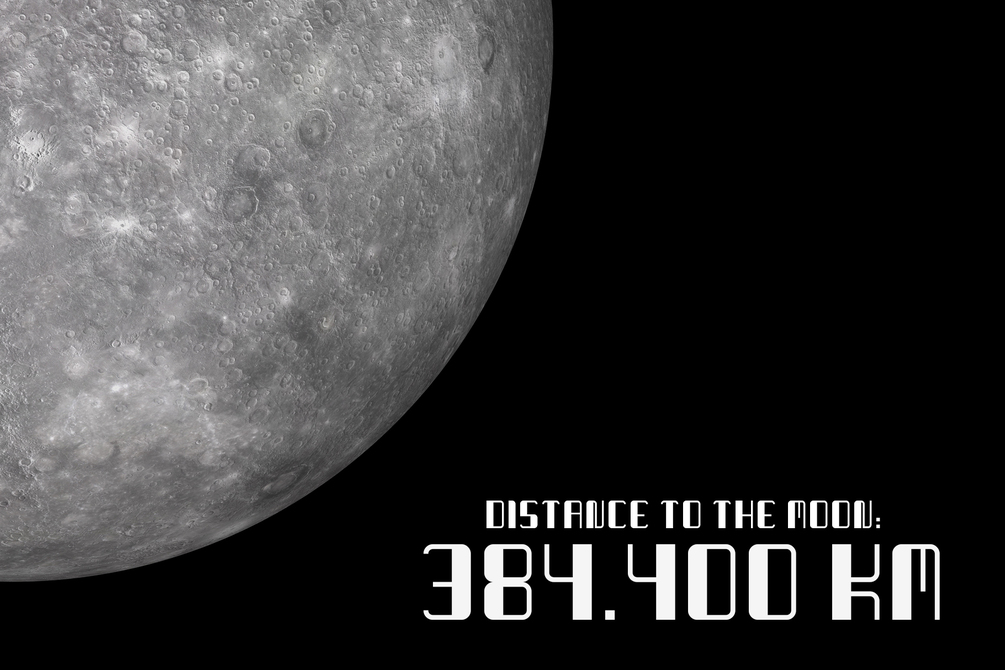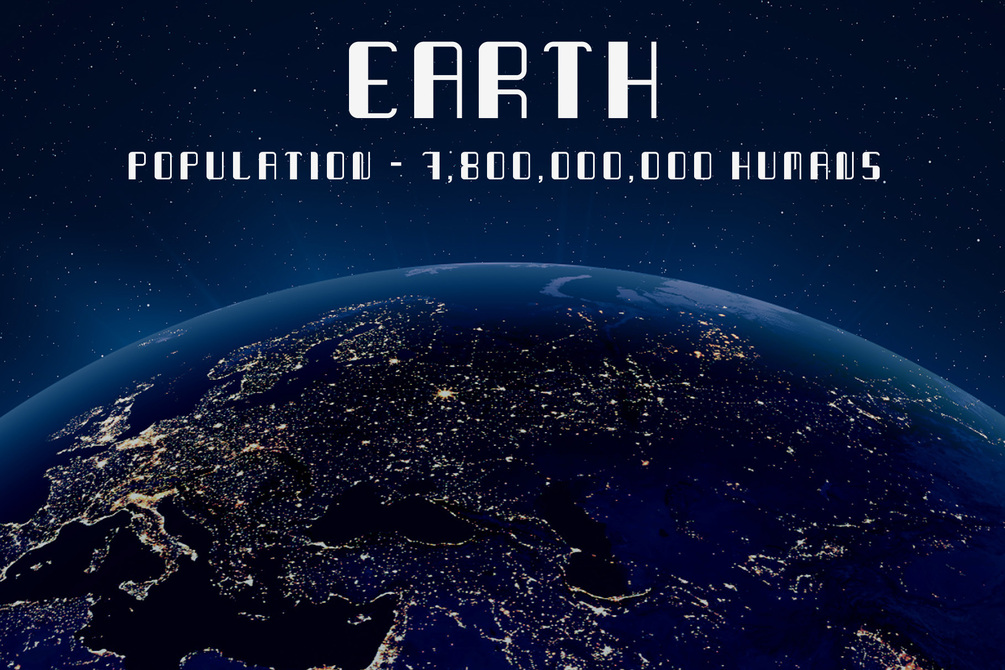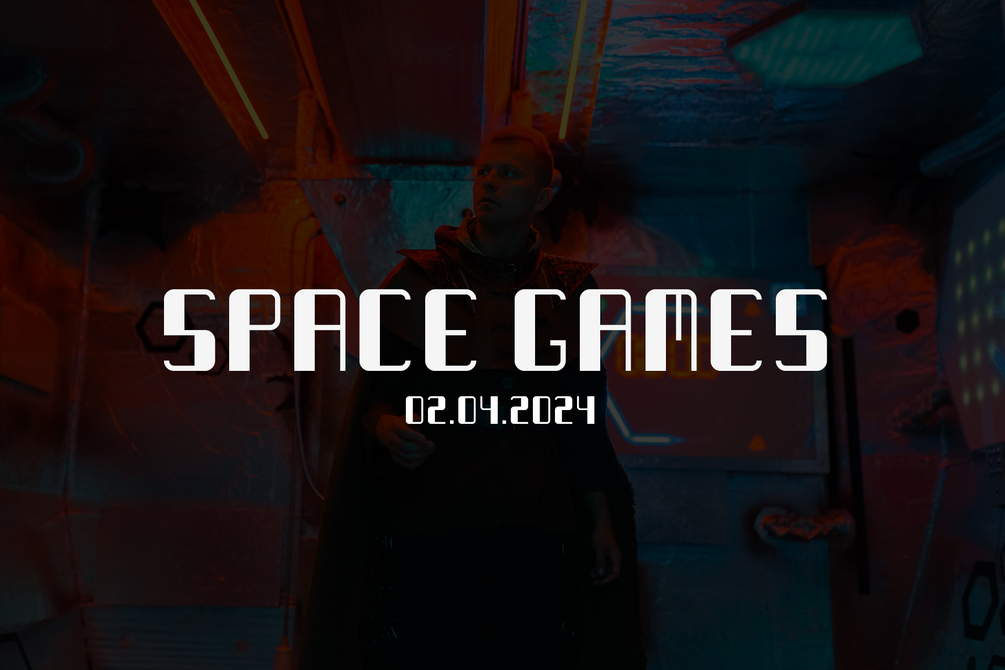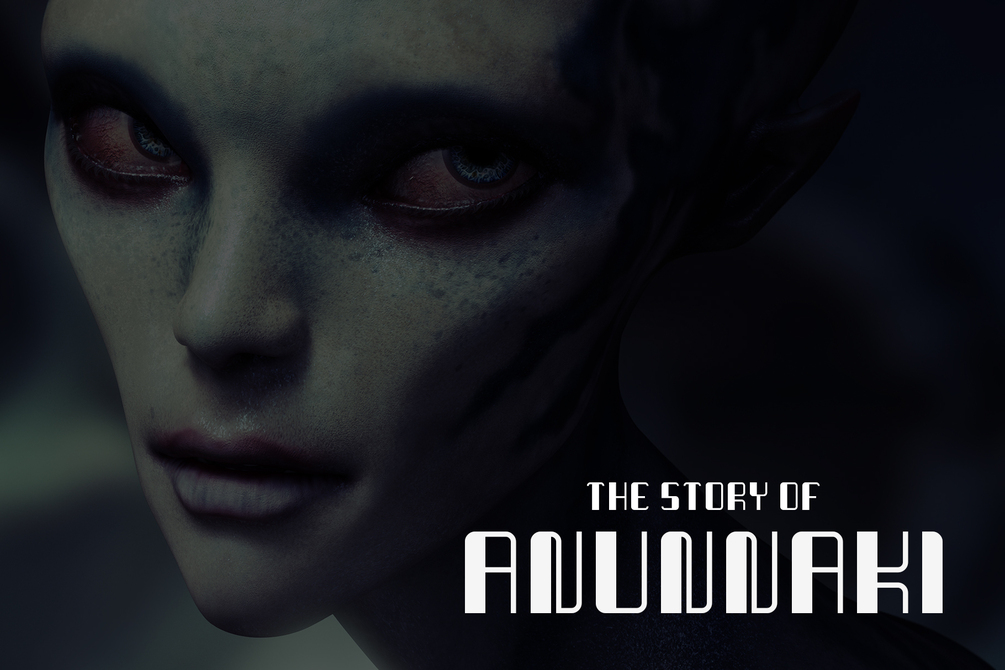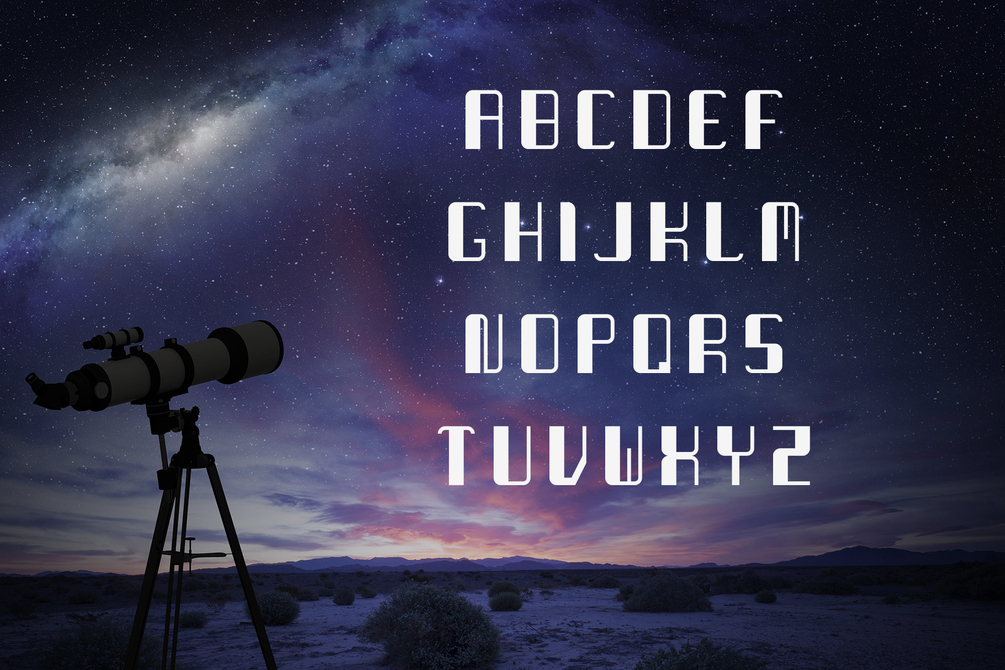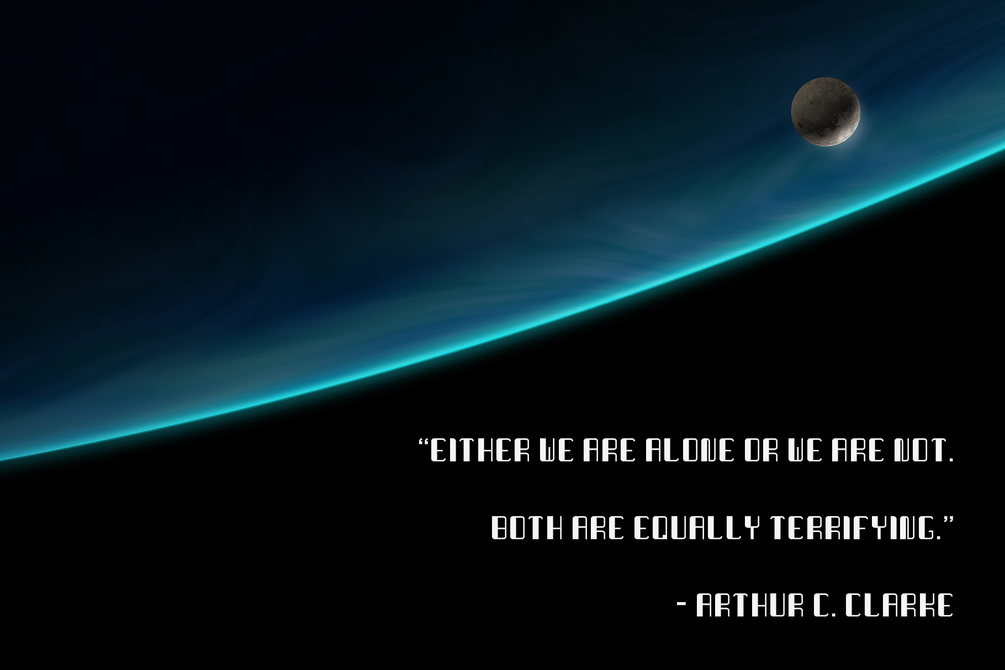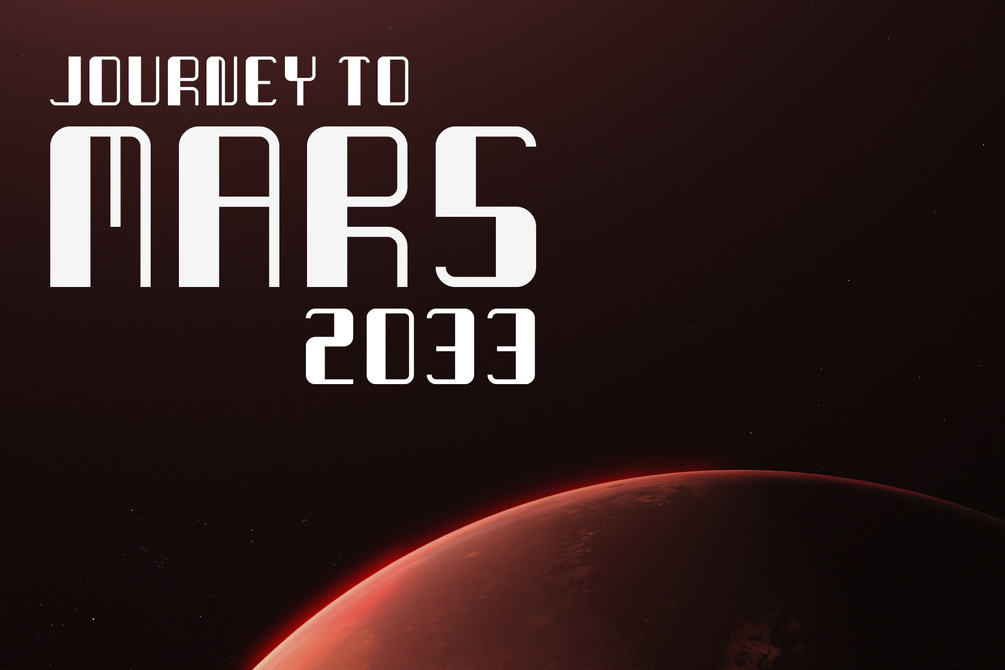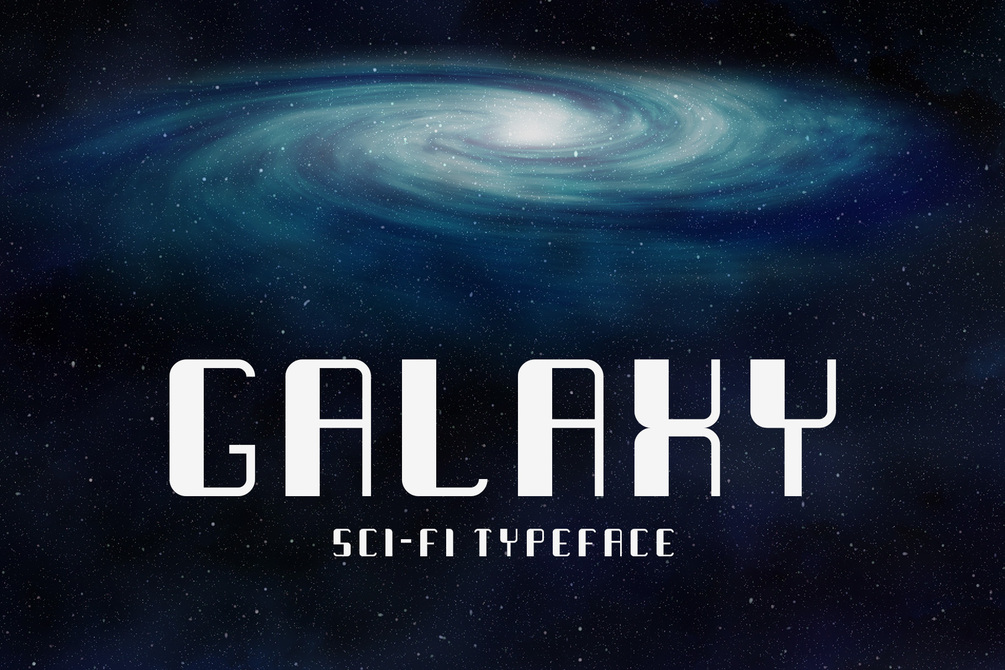
Galaxy - Sci-fi Typeface
Galaxy is a modular, geometric and slightly condensed typeface. It was conceived to primarily be a display typeface. Before you press the buy button, please note that this is an all caps font. Feel free to give it a test run below. I hope you'll enjoy and create beautiful things with it!